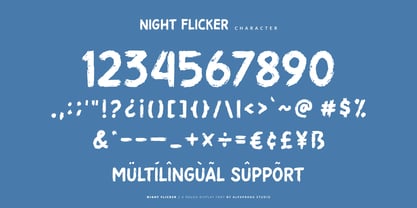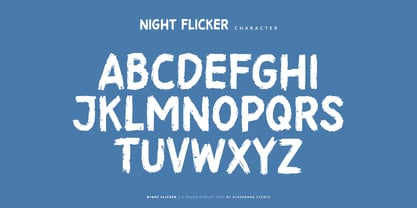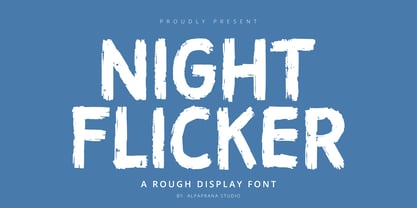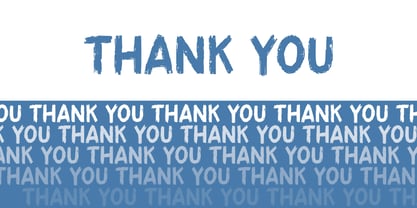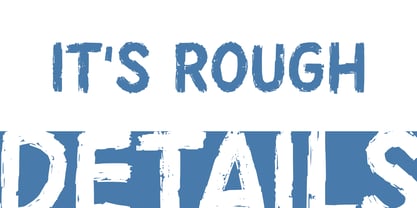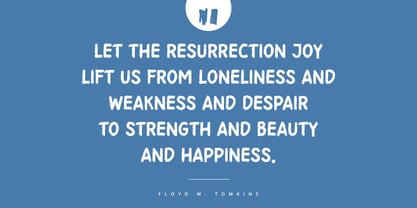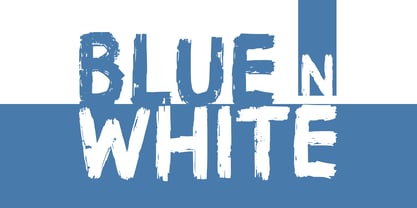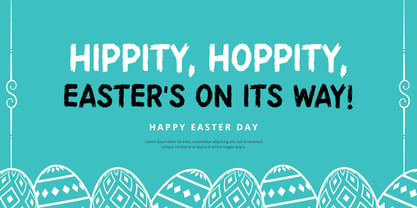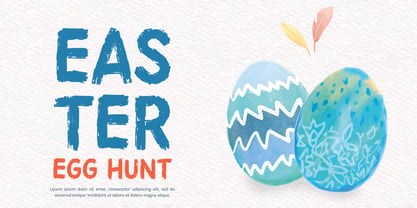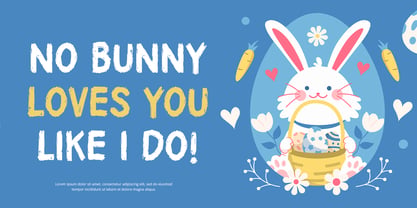
Night Flicker
by Alpaprana
The Night Flicker Font Family was designed by Nadia Salsabila and published by Alpaprana. Night Flicker contains 1 styles. More about this family
Night Flicker is a rough display font with modern and playful feels. It will be perfectly used for Branding, Logo Design, Lettering, Logotype, Clothing, Poster, magazine, packaging, posters, shopping bags, t-shirts, book covers, photography, special events and other design project.
Designers: Nadia Salsabila
Foundry: Alpaprana